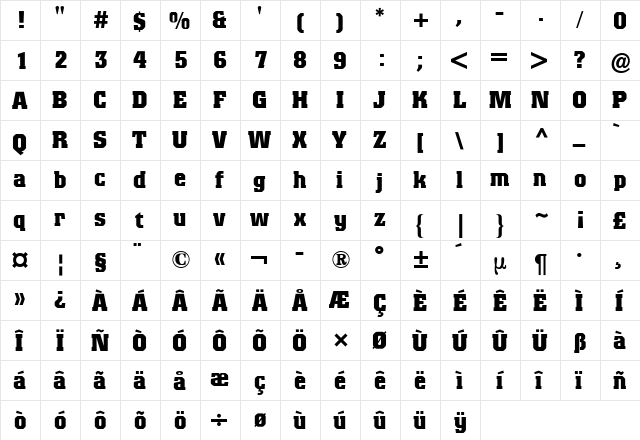
Colossalis BQ Bold
Design Context for Colossalis BQ Typeface
Colossalis BQ takes a measured approach to typography — its balanced proportions and neutral character make it a reliable workhorse for both digital and print work. The heavy weight commands attention and anchors typographic hierarchies.